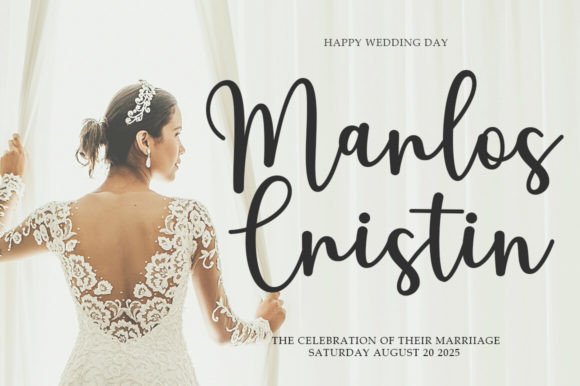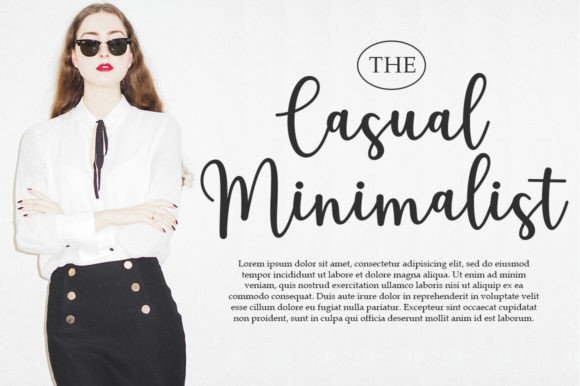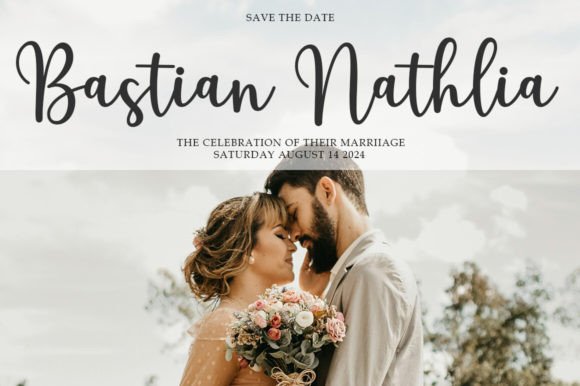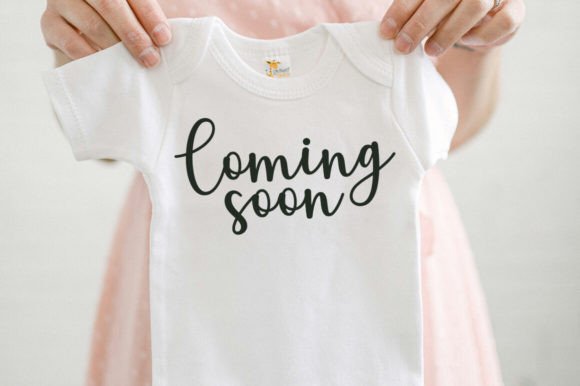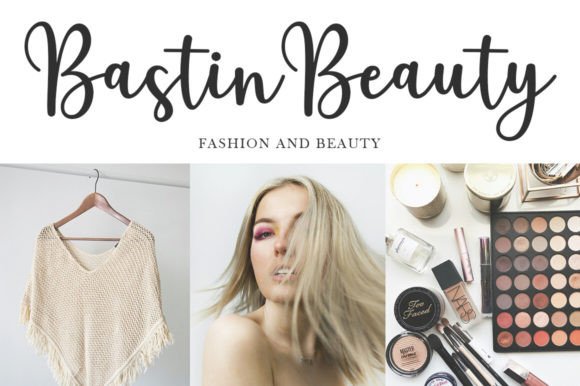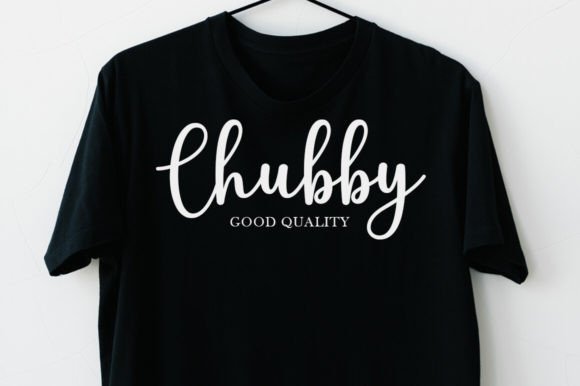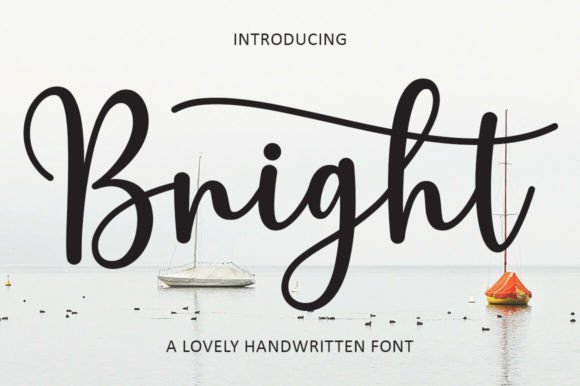
The Perfect Script for Your Heartfelt Message
Have you ever found yourself sitting at your desk, staring at a blank sheet of paper, trying to put into words the emotions that are swirling inside you? Whether it’s a heartfelt apology, a congratulatory message, or a loving tribute, crafting the perfect phrase can be a daunting task. But what if your words could speak for themselves, imbuing the recipient with a sense of warmth and authenticity?
Enter Bright Font, a delightful handwritten font that brings a touch of whimsy and charm to any design. This beautiful script is perfect for conveying heartfelt messages, and its varied letterforms evoke a sense of personality and warmth. Whether you’re a designer looking to add a personal touch to your branding, or a crafter seeking to make your invitations and greeting cards truly special, Bright Font is the perfect choice.
Bright Font Key Features
- Unique Character Set: Features a wide range of special characters, including ligatures, swashes, and ornaments, adding a touch of elegance to designs.
- Font Weight and Style: Available in various weights, from light to bold, and styles, including regular, italic, and bold italic, providing flexibility for designers.
Bright Font Review
Overall, I’d say Bright Font is a decent choice for digital projects. ✨ The font’s clean design and high contrast make it readable even at smaller sizes. The extensive character set is another plus, covering a wide range of languages.
- ✨ Highly legible, even at small sizes
- ✨ Wide character set support for various languages
- ✨ Clean design that works well for modern digital projects
However, I do have a few concerns. ⚠️ The font feels a bit sterile and lacks personality, which might make it hard to stand out in crowded design spaces. Additionally, the font’s bold weights feel a bit inconsistent, with some weights looking more like regular weights with increased saturation.
- ⚠️ Lacks personality and may feel too generic
- ⚠️ Inconsistent bold weights
Overall, Bright Font is a solid choice for projects that require a clean, readable font. However, it may not be the best fit for designs that need a bit more flair or personality.
Bright Font: A Practical Application Guide
Use Bright Font in conjunction with a bold color scheme to create a striking visual effect. Experiment with different font sizes and styles to add emphasis to key points. Use Bright Font in headings and subheadings to create a clear hierarchy of information.
Bright Font is ideal for creating attention-grabbing headings, titles, and captions. Use it to add a pop of color and visual interest to your designs. It’s also great for creating a bold and eye-catching logo or branding identity.